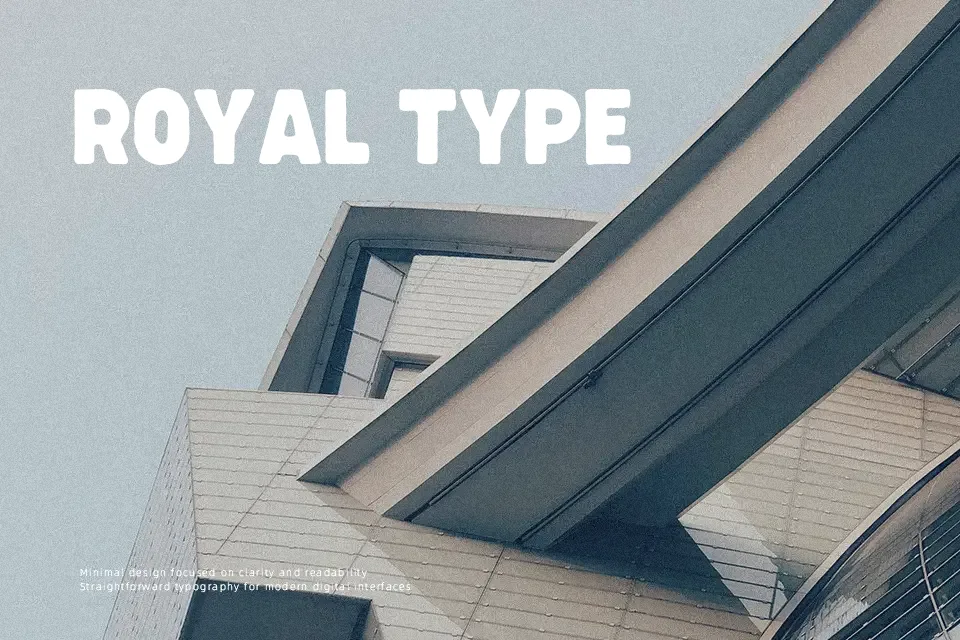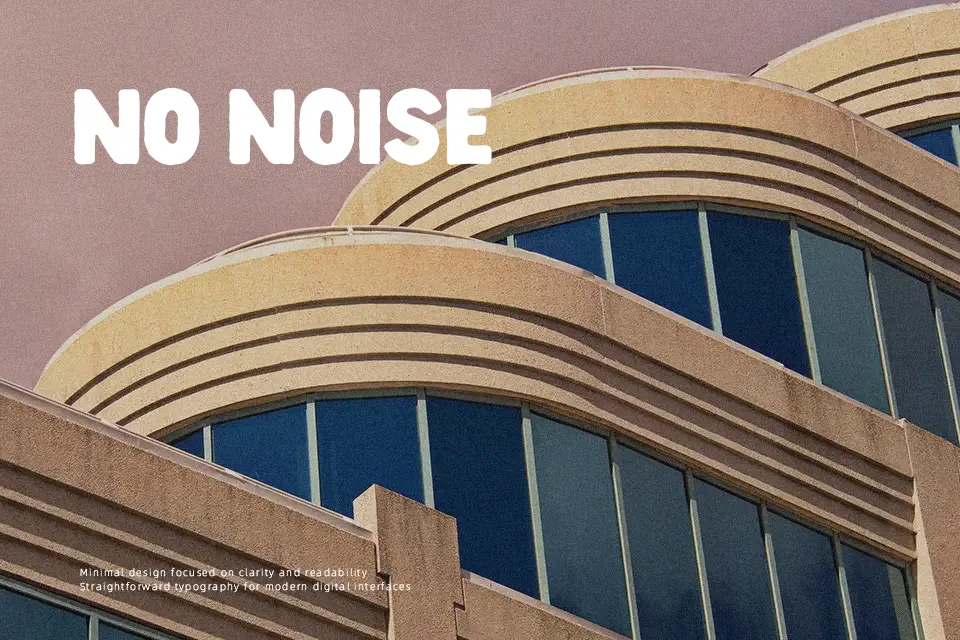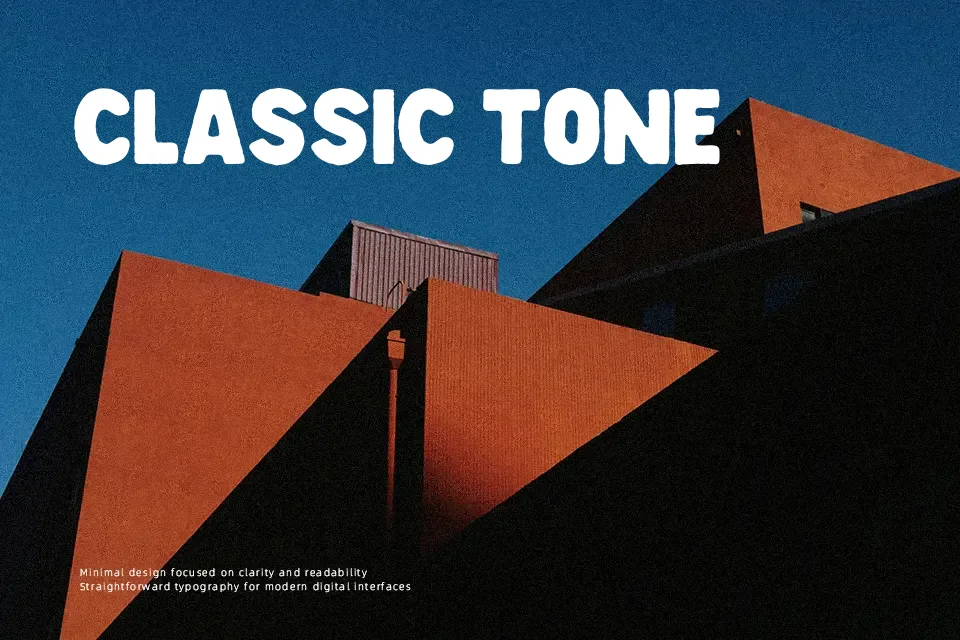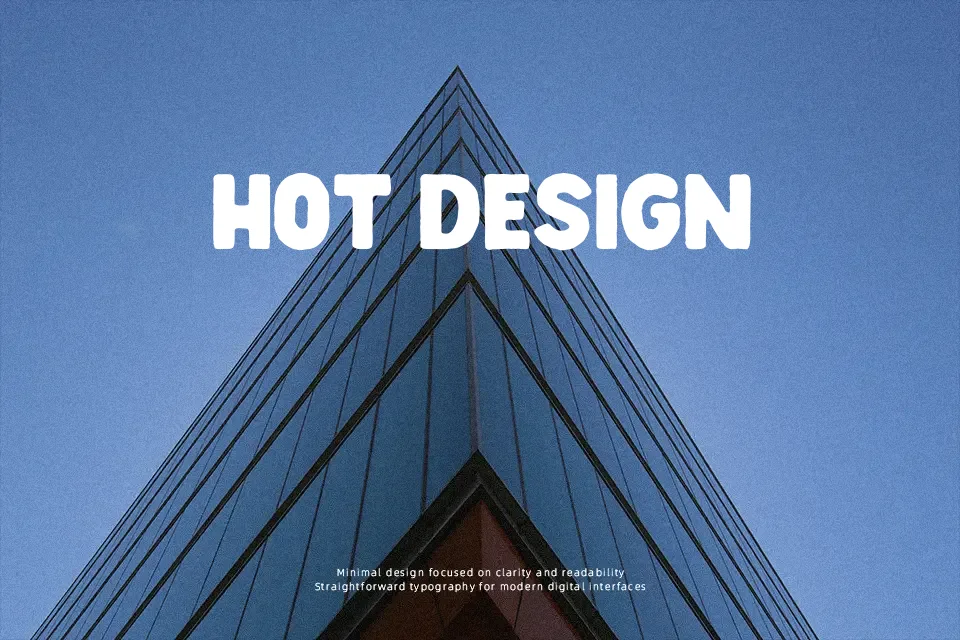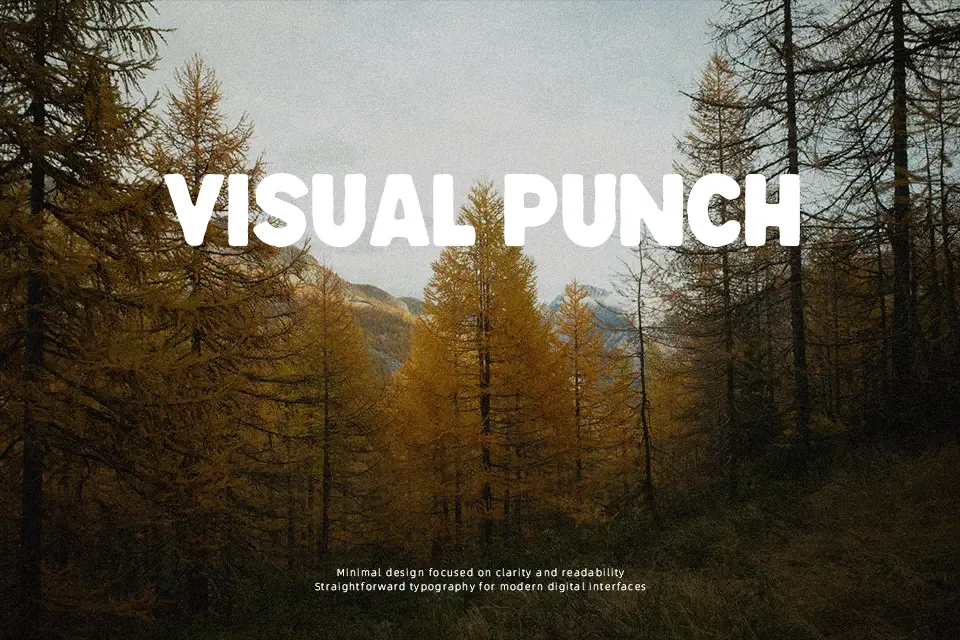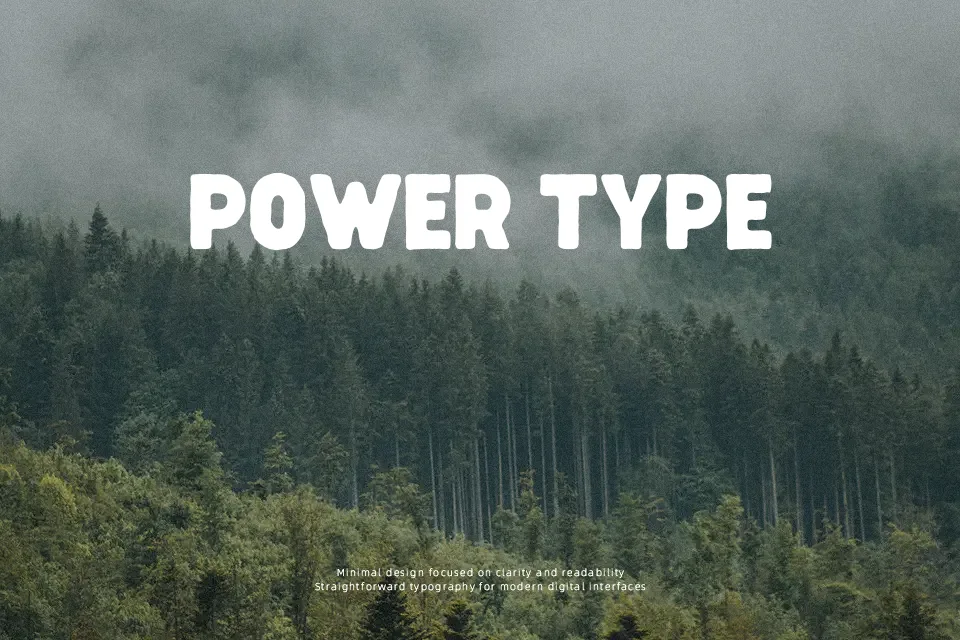
Rugles Font
Rugles Font immediately establishes a commanding presence with its heavy, textured letterforms and industrial grit. The bold strokes showcase a deliberately eroded, rough structure that gives the typography an authentic, rebellious aesthetic. Spacing remains relatively tight, ensuring that display text holds together firmly in dense layouts. This robust construction makes the typeface highly effective for streetwear apparel graphics, intense music festival posters, and striking packaging design. However, the distressed edges and thick proportions create significant reading strain in continuous reading scenarios. Ultimately, the raw detailing shines best when the text is scaled up significantly, allowing the rugged textures to stand out without muddying the overall legibility.
streetwear apparel graphics, music festival posters, heavy industrial branding, energy drink packaging
long paragraph text, small interface labels, corporate reports, dense editorial layouts
Perfect for branding, fashion, and headline, with a bold and decorative style.